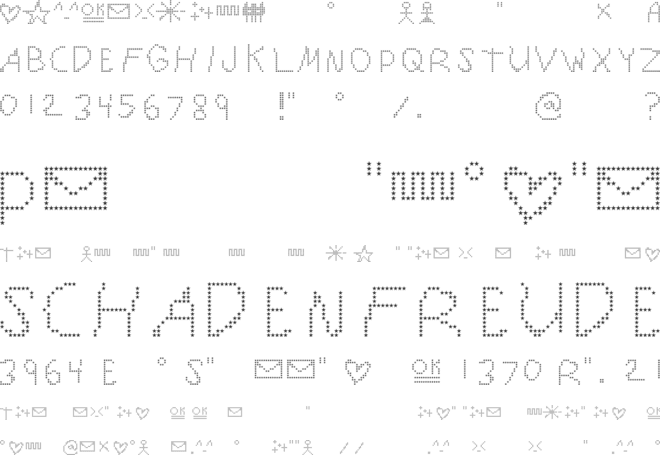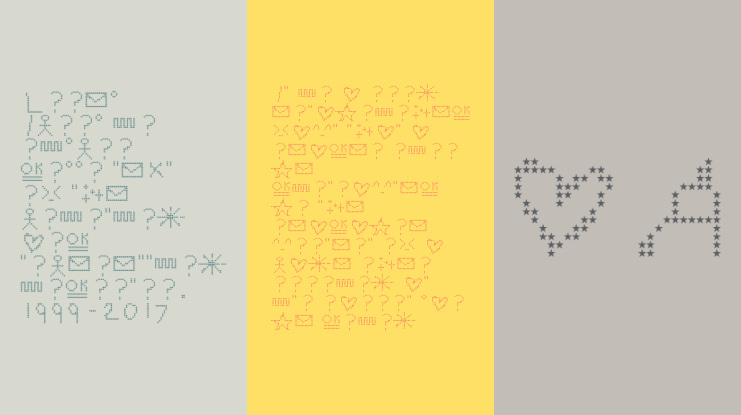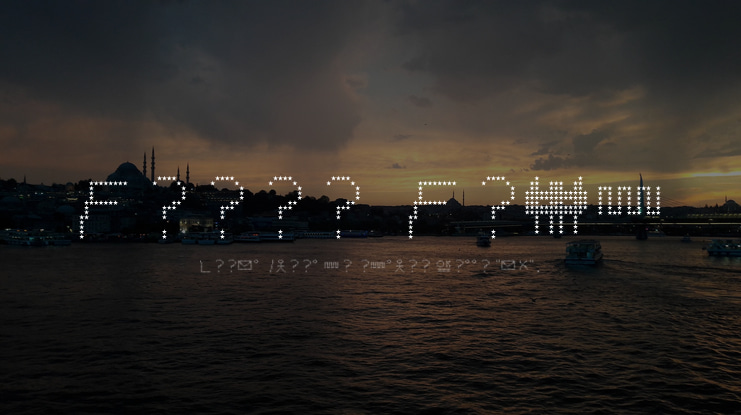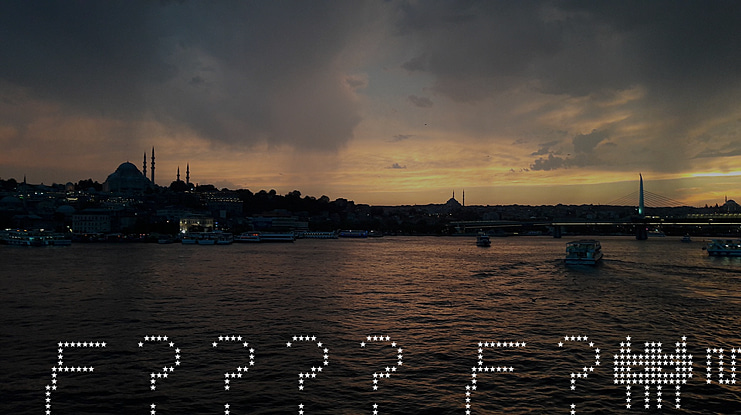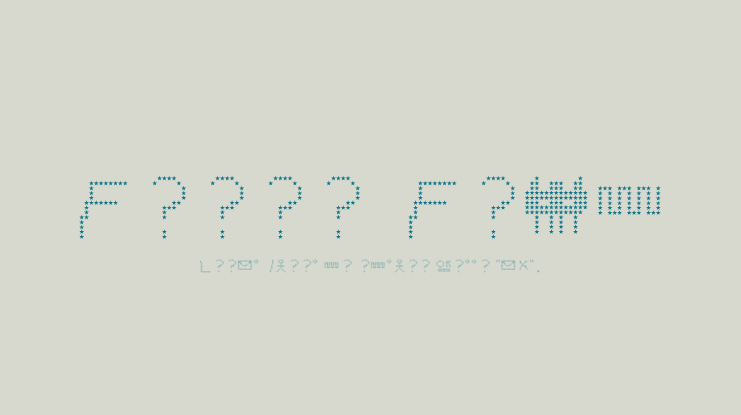
Funky Fuji Font
Well, this is handwriting if you WRITE IN STARS! This is a Japanese language font, but also includes some English characters and some dingbats. It's an all around funky font for you all to enjoy, Rock on! PS. I uploaded this a long time ago to Openfontlibrary, but I can't find it now... so uploading it again!
English CAPITALS work, not lower case. Hiragana and Katakana work without the tenten or maru marks combinations (I was lazy, OK?!) you'll have to make do with the lower case alphabet "t" key for the tenten, and the little "m" for the maru. oh and lower case "a" is a heart, wooo! Enjoy.